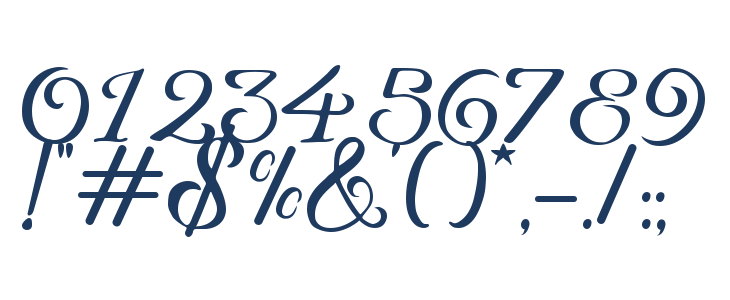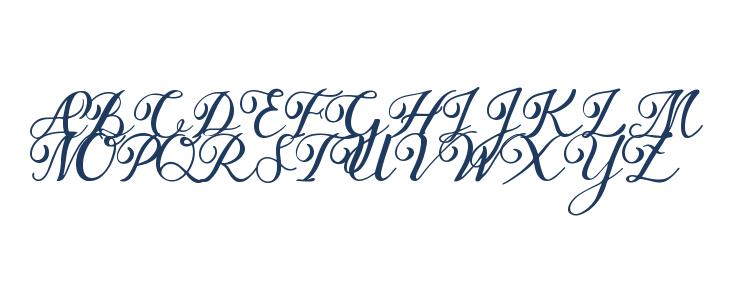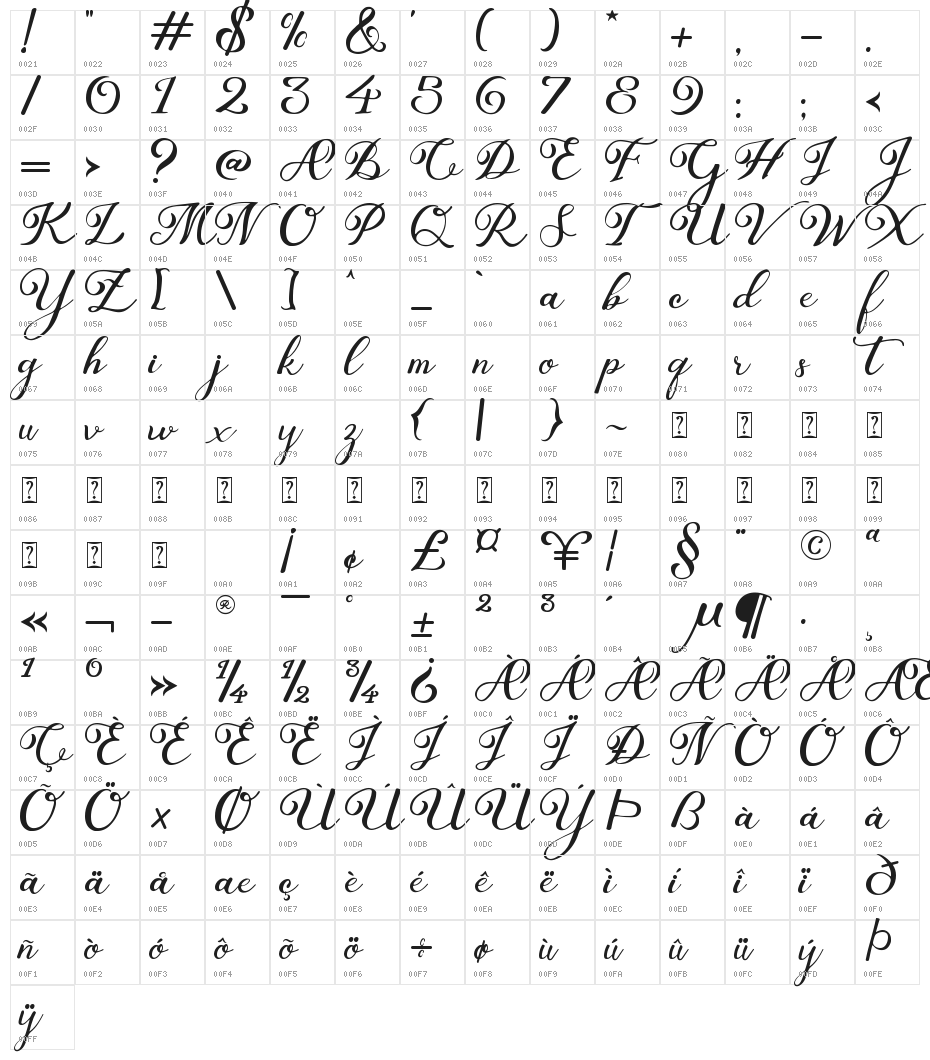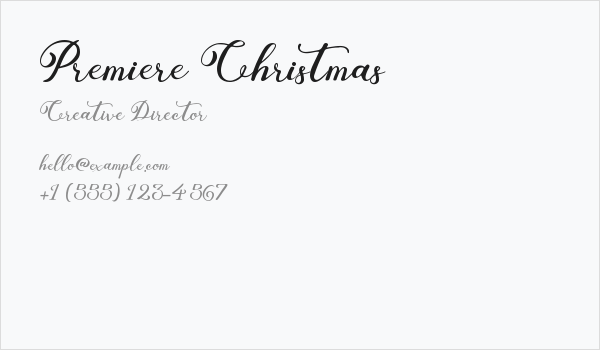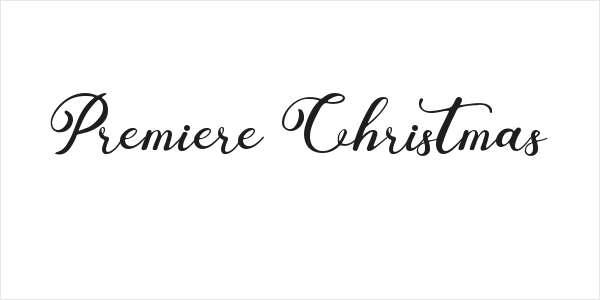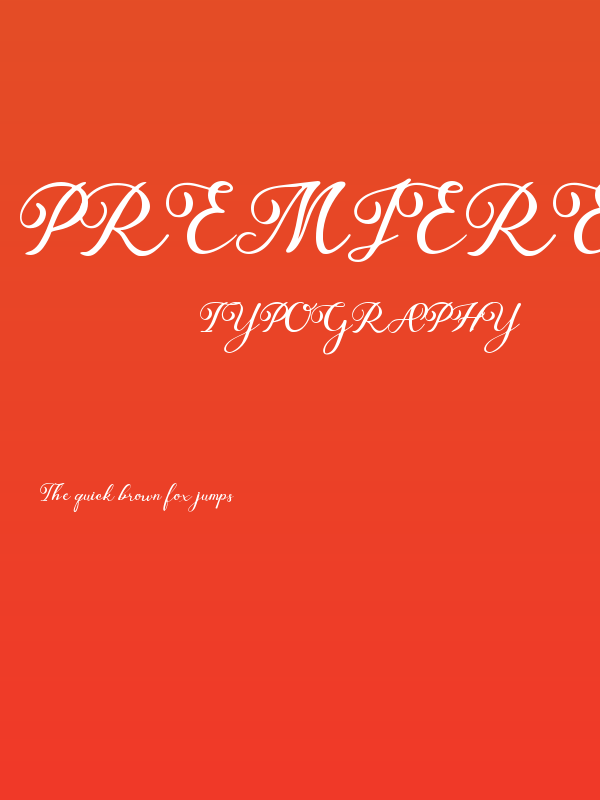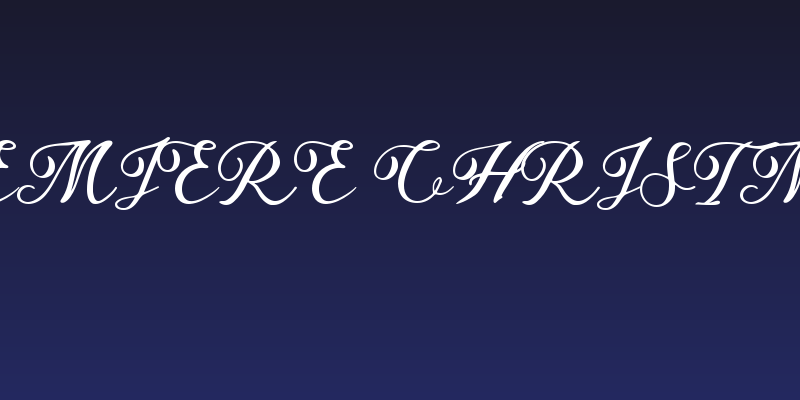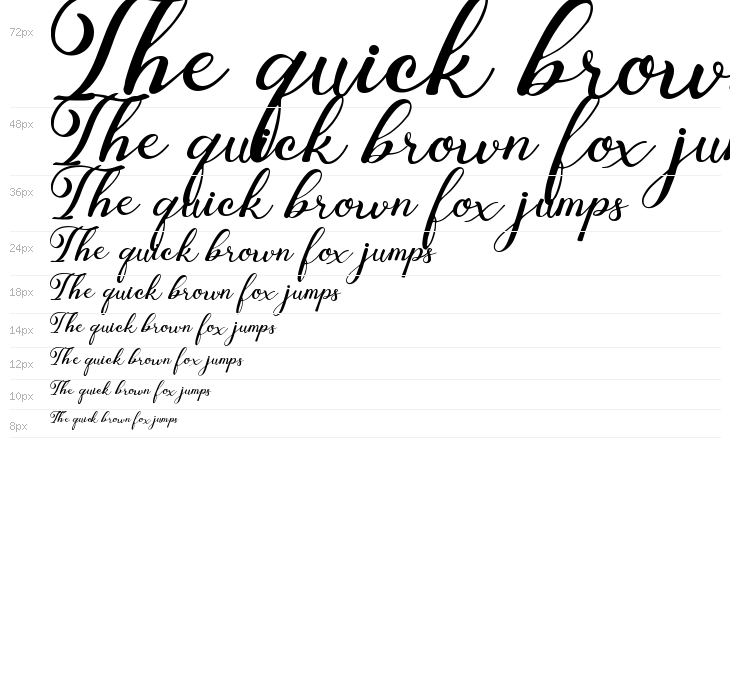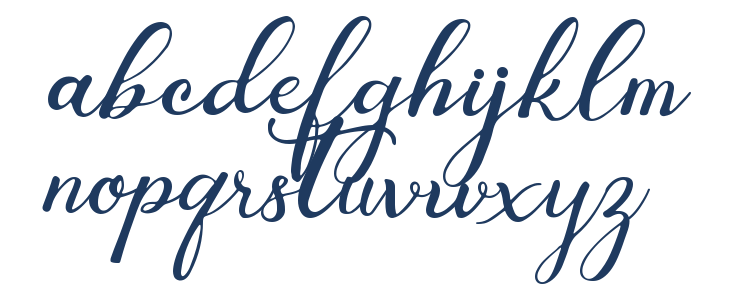
Premiere Christmas Font
Premiere Christmas Description
Elegant script typeface with flowing, connected letterforms and high contrast between thick and thin strokes. The uppercase and lowercase characters feature ornate swashes and flourishes, giving a handwritten, calligraphic appearance. Numerals and punctuation are styled to match the decorative, festive feel.
| Overall Style | Decorative, Elegant, Festive |
| Use Case | Headlines, Invitations, Logos, Decorative text |
| Proposed Projects | Holiday cards, wedding invitations, event branding, festive packaging, decorative headlines. |